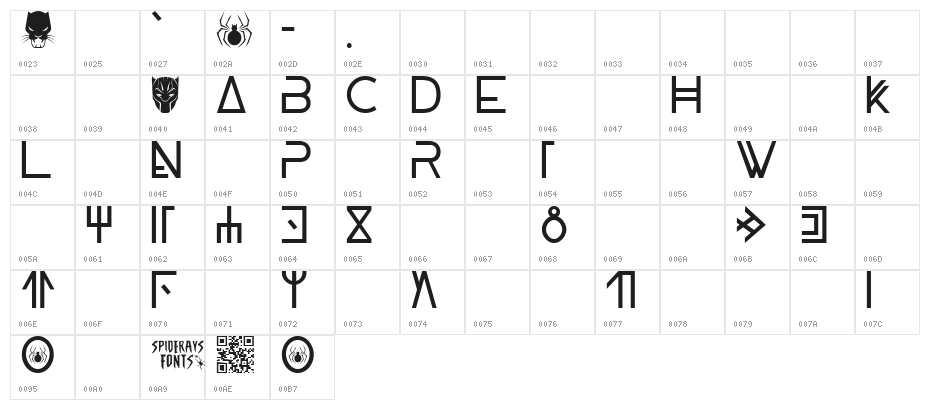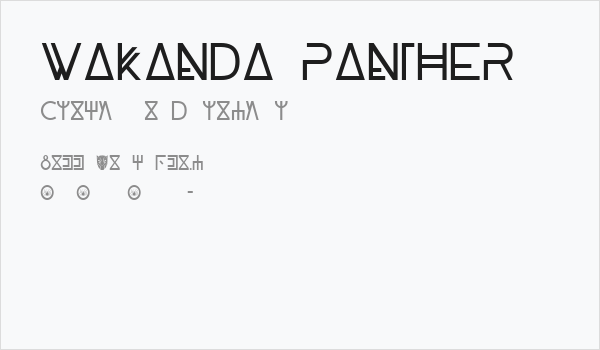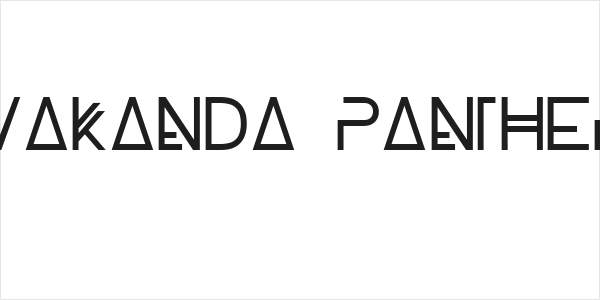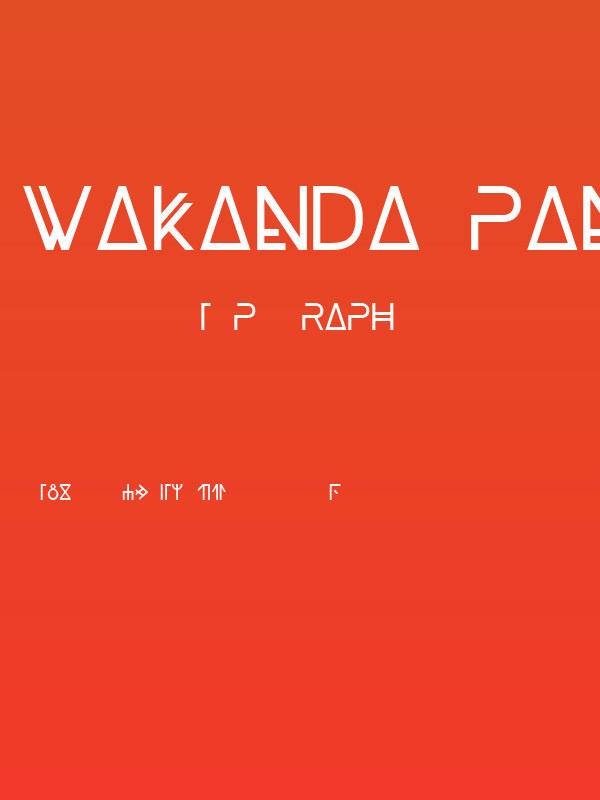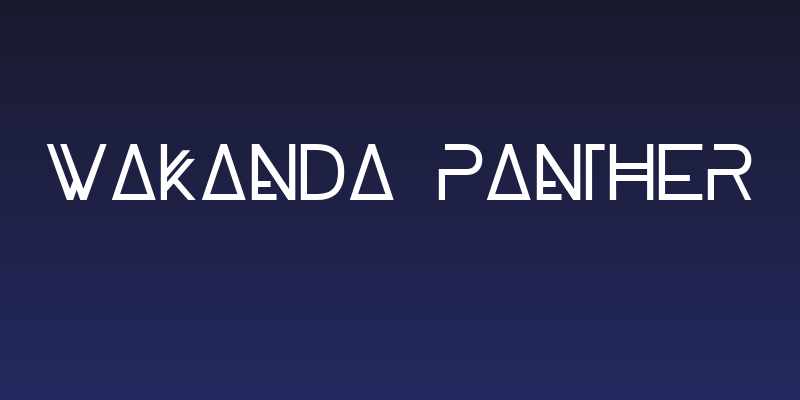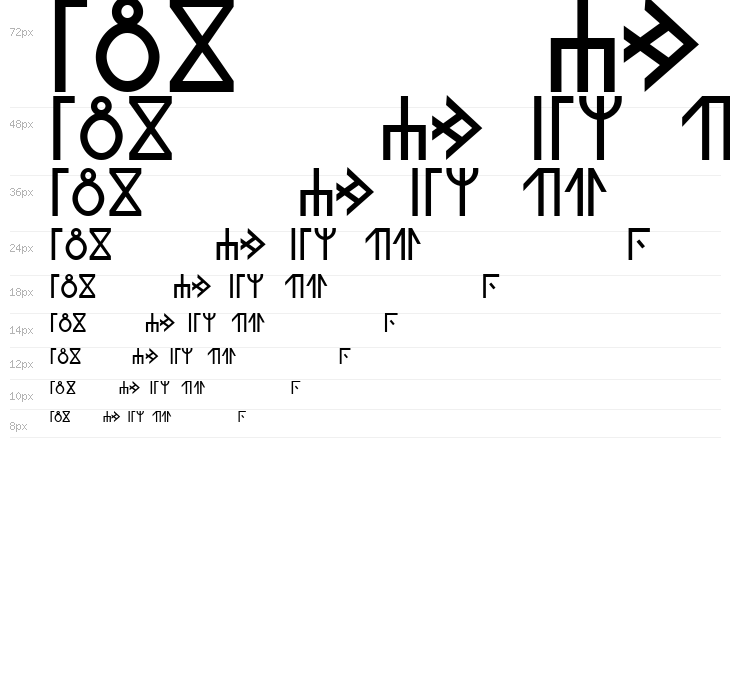
WAKANDA PANTHER Font
WAKANDA PANTHER Description
This font features a unique and bold design inspired by African tribal art and modern geometric shapes. Each character is crafted with sharp angles and distinct lines, creating a sense of movement and energy. The uppercase letters are particularly striking, with some characters incorporating triangular and angular elements that give them a futuristic feel. The lowercase letters maintain the same geometric style, ensuring consistency throughout the typeface. The numbers and special characters are equally distinctive, with some symbols resembling abstract icons. This font's overall aesthetic is both modern and culturally rich, making it stand out in any design project.
WAKANDA PANTHER
| Overall Style | Modern, Cultural |
| Use Case | Logos, Posters, Branding |
| Proposed Projects | Ideal for branding, posters, and projects requiring a bold, cultural statement. |